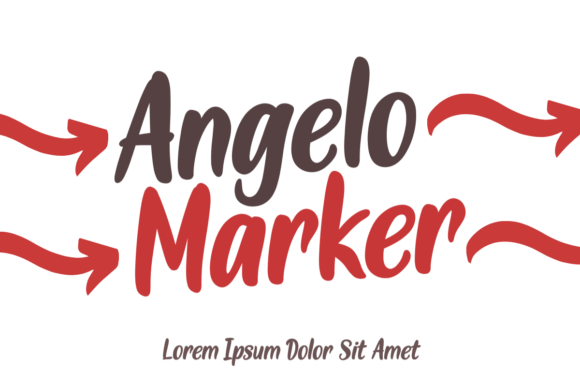
Before you dive into a sea of fonts, let me introduce you to Angelo Marker — an extraordinary lettered, paint-brushed handwritten font that will leave you spellbound. Crafted by the expert hands of Deedeetype, this font radiates a unique, hand-drawn charm.
Angelo Marker's essence lies in its cool and neat strokes, exuding a captivating personality that will make your designs pop. Its dynamic character makes it a treasure for any creative project, adding an artistic touch that elevates ordinary text into captivating visuals.
Unleash your creativity with Angelo Marker, a versatile script font that adapts seamlessly to a myriad of projects. Whether you're crafting captivating logos, designing eye-catching social media posts, or creating stunning invitations, Angelo Marker effortlessly elevates your creations, leaving a lasting impression on your audience.
Step into a world of limitless possibilities with Angelo Marker. Its captivating strokes will transform your designs, adding a dash of allure to everything they touch. Join the creative revolution and let Angelo Marker be your font of choice for crafting captivating content that speaks volumes.